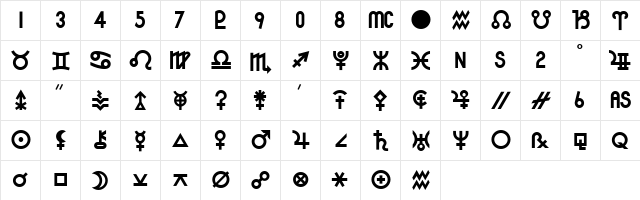
StarGeoHeavy Medium
Design Context for StarGeoHeavy Typeface
StarGeoHeavy takes a measured approach to typography — its balanced proportions and neutral character make it a reliable workhorse for both digital and print work.
Pro Tip: Use StarGeoHeavy in both headline and body roles to test its range before committing to a single application.